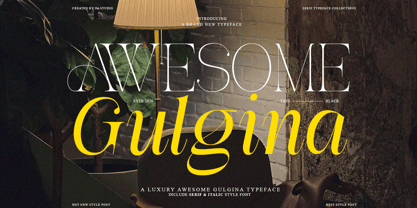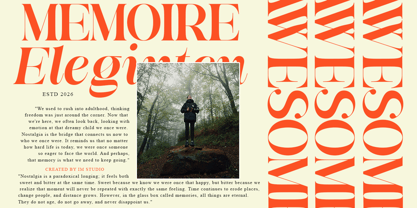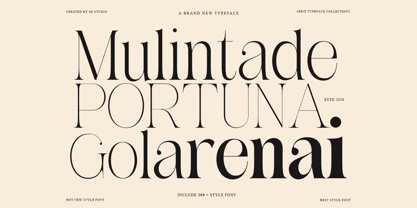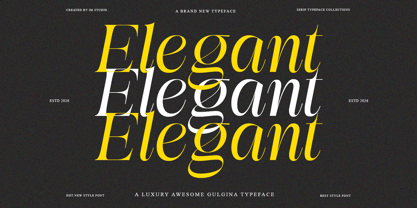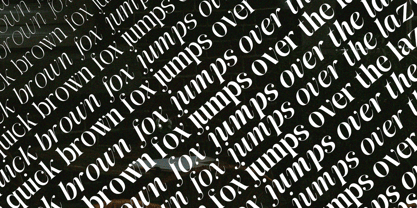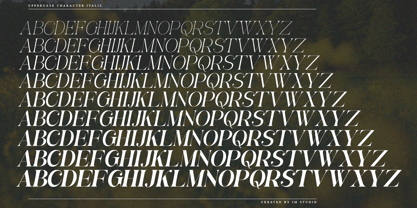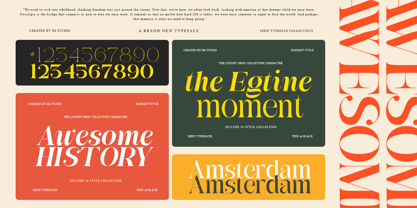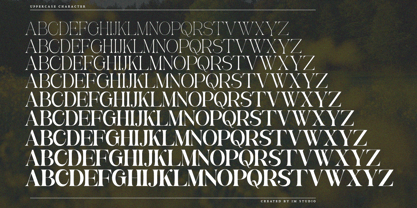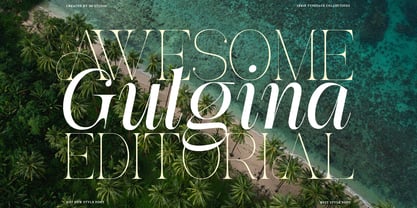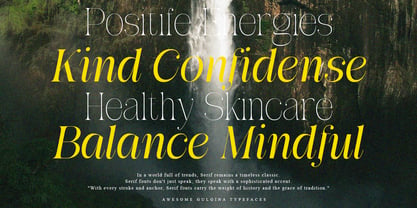
Awesome Gulgina
by IM Studio
The Awesome Gulgina Font Family was designed by Ikhsan Maulana and published by IM Studio. Awesome Gulgina contains 226 styles and family package options. More about this family
Introducing Awesome Gulgina: A Serif & Italic Typeface for the Modern Creative
Where precision meets elegance. Awesome Gulgina is a meticulously crafted typeface family that bridges the gap between modern clarity and timeless sophistication. Every letterform is engineered with deliberate balance—clean structure, subtle contrast, and refined curves that command attention without demanding it. Whether you're setting a headline or composing a full editorial spread, Awesome Gulgina adapts effortlessly, bringing a quiet confidence to every design it touches.
✦ The Typeface, Defined
Step into a world where typography becomes an experience. Awesome Gulgina's harmonious proportions and contemporary sensibility make it equally at home in bold brand identities and delicate, refined compositions.
Its purpose-built italic style—a true slant design, not a mechanical lean—introduces a natural sense of movement and rhythm, giving your work a dynamic yet polished character. Multiple weights, one unified vision.
✦ Key Features
• Modern Clarity
A clean, structured architecture ensures effortless readability at any size, from fine print to large-format displays—without sacrificing elegance.
• Elegant Ligatures
A curated selection of sophisticated ligatures elevates your typography, adding expressiveness and visual refinement to every word.
• Extensive Language Support
With support for over 90 languages, Awesome Gulgina is built for the world stage—ideal for brands and creatives with a global voice.
• True Slant Italic Design
Unlike a simple oblique, the italic style is purpose-built from the ground up—flowing naturally alongside the upright styles for a seamless, organic feel.
✦ Made For
Use CaseWhy It WorksEditorial & PublishingExceptional readability for magazines, books, and long-form print.Branding & IdentityClean, modern forms that build memorable, lasting impressions.Web & Digital DesignOptimized for clarity and legibility across all screen sizes.Packaging & PrintAdds a premium, contemporary touch to physical materials.Invitations & StationeryElegant and versatile—equally suitable for formal and creative occasions.
Designers: Ikhsan Maulana
Foundry: IM Studio
Awesome Gulgina